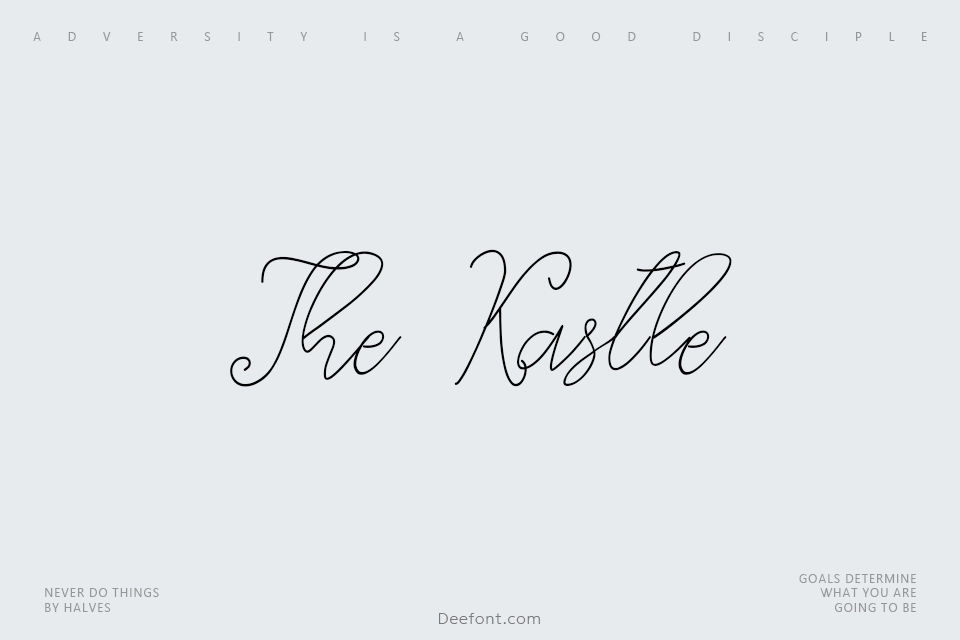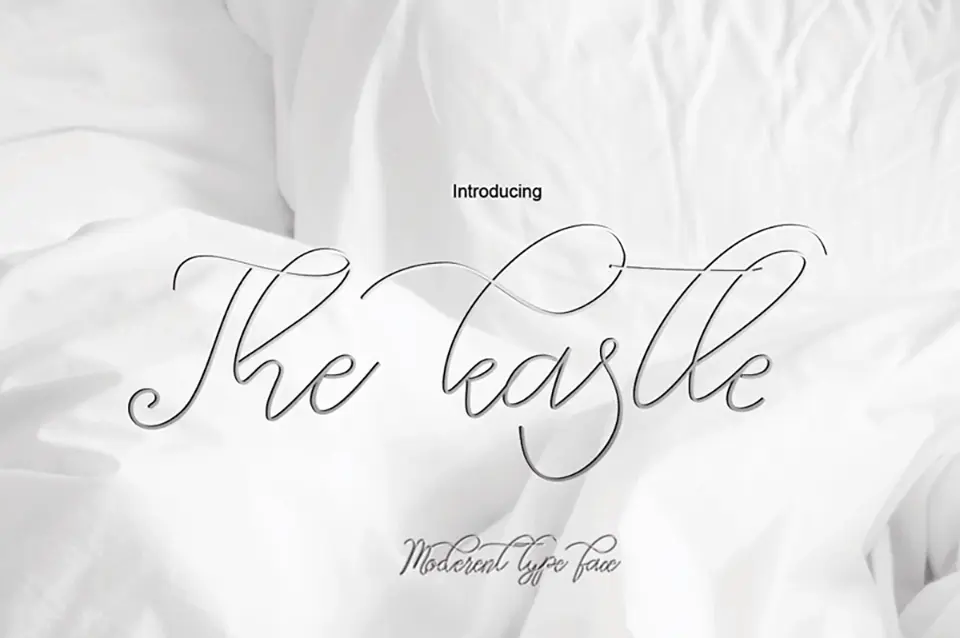
The Kastle Font
The Kastle is an elegant handwritten script font designed for personal creative use. This flowing typeface features graceful letterforms with calligraphic influences, making it perfect for invitations, greeting cards, branding projects, and artistic compositions. The font encompasses 296 glyphs supporting multiple languages, offering versatility for diverse design applications. With its warm, expressive strokes and distinctive handwritten style, The Kastle brings a touch of sophistication and authenticity to any typography project.